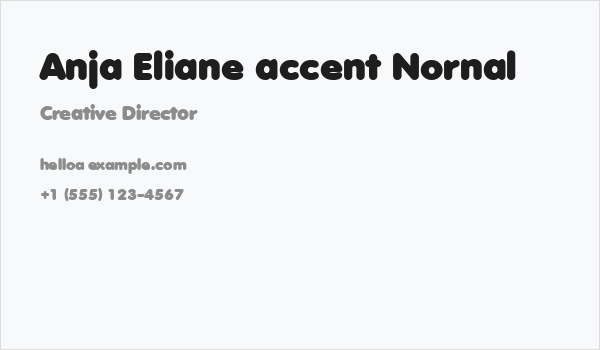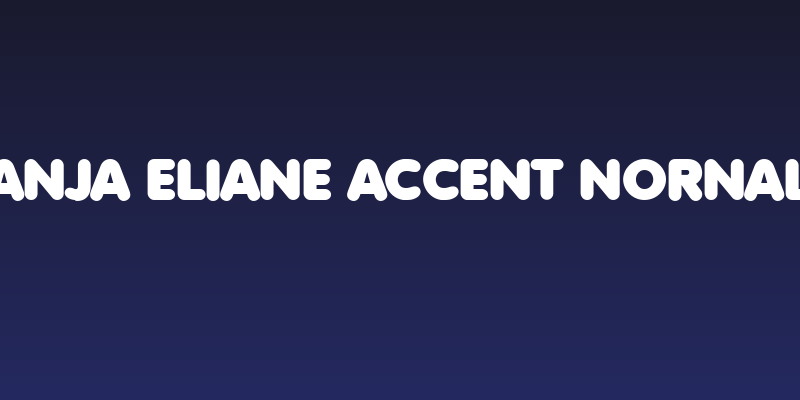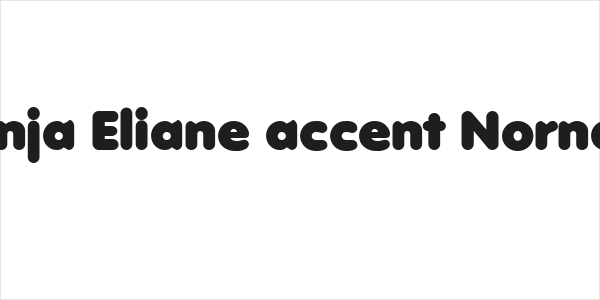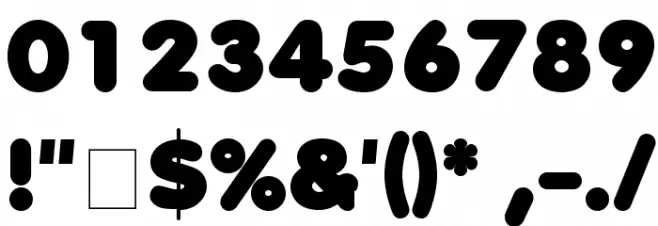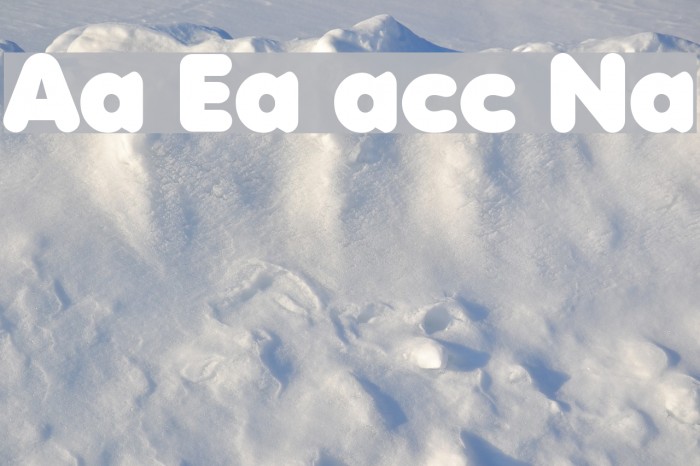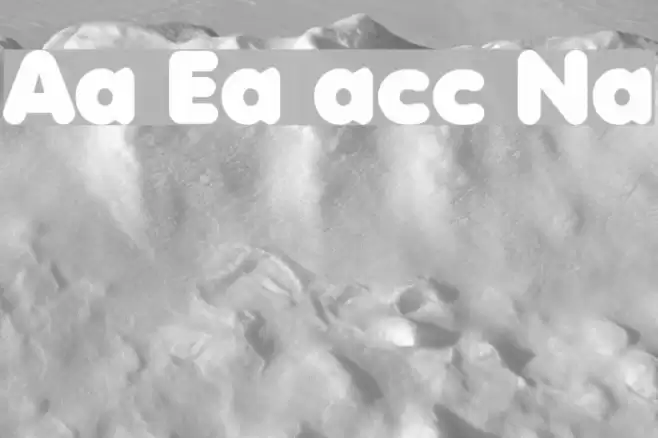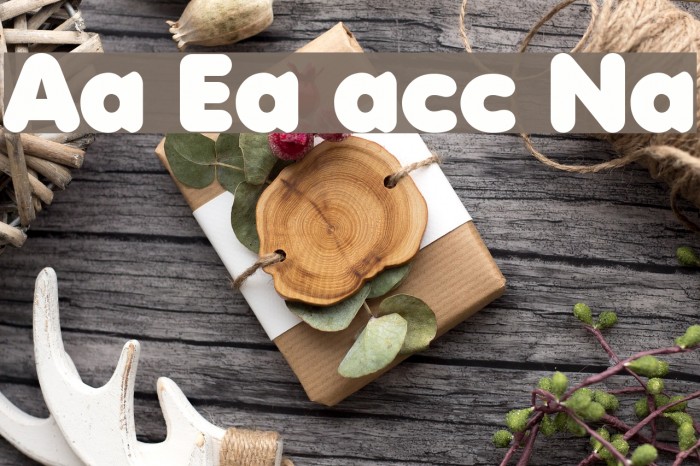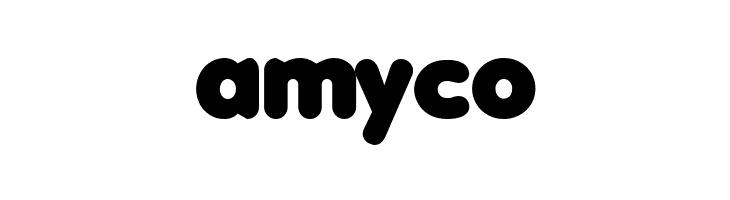
Anja Eliane accent Nornal Font
Anja Eliane accent Nornal Description
This font features bold, rounded characters with a playful and friendly appearance. The letters are uniformly thick, creating a strong visual impact. The rounded edges and consistent stroke width give it a soft, approachable feel, making it ideal for designs that require a welcoming and informal tone. The characters are evenly spaced, ensuring readability while maintaining a cohesive look. The font's style is modern and versatile, suitable for a variety of creative projects.
| Proposed Projects | Ideal for children's books, playful branding, casual invitations, and social media graphics. |